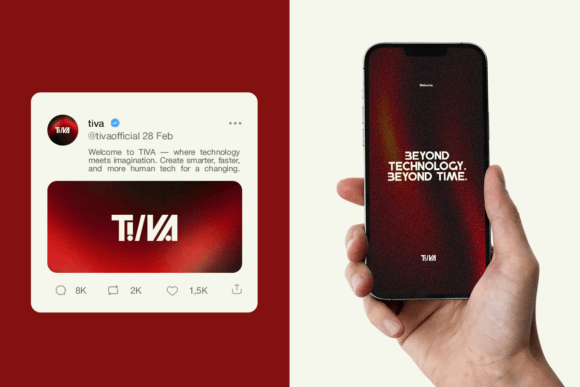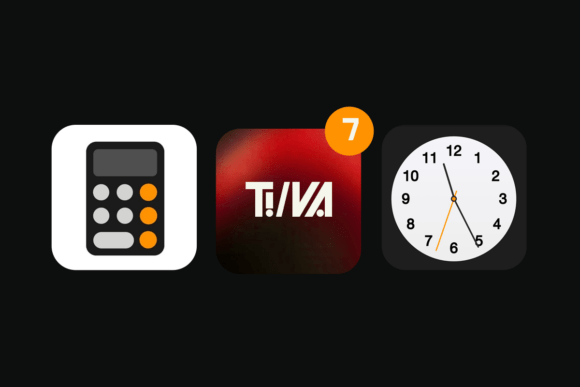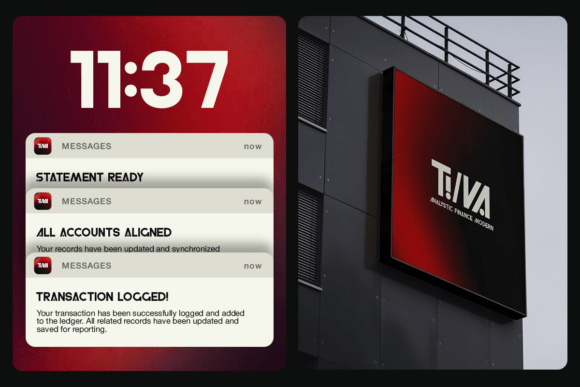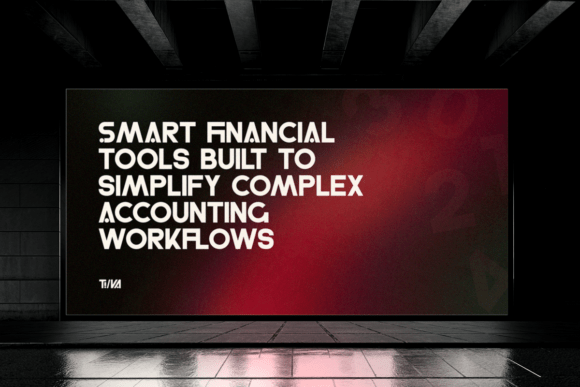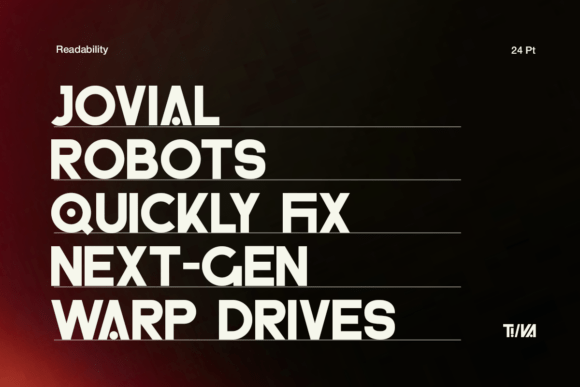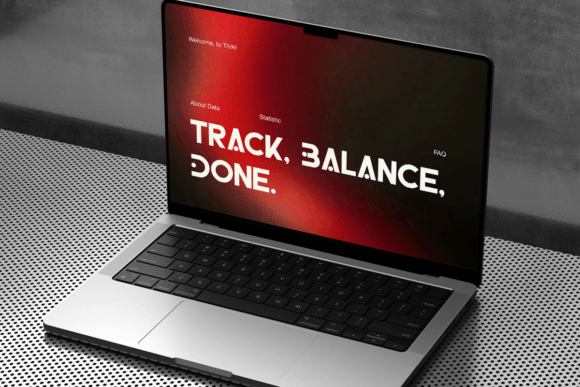
Introducing Boldy Clover Font: The Ultimate Choice for Modern Technology Branding
In the rapidly evolving world of technology, a brand’s visual identity is crucial for making a lasting impression. A well-crafted font can elevate a brand’s image, conveying innovation, intelligence, and digital confidence. This is where Boldy Clover Font comes into play – a modern technology font designed to meet the demands of the digital age. With its bold geometric letterforms, clean edges, and futuristic feel, Boldy Clover delivers a strong visual impact while maintaining excellent readability.
Key Features of Boldy Clover Font
Boldy Clover Font boasts a range of features that make it an ideal choice for tech-forward branding and digital interfaces. Some of its key features include:
- Bold Geometric Letterforms: The font’s bold and geometric letterforms are designed to convey a sense of innovation and digital confidence.
- Clean Edges and Futuristic Feel: The clean edges and futuristic feel of Boldy Clover give it a sharp, smart, and professional look.
- Excellent Readability: Despite its bold design, Boldy Clover maintains excellent readability, making it perfect for digital interfaces and print applications.
- 17+ Ligatures: The font comes equipped with 17+ ligatures, allowing for smoother letter connections and refined typography details.
- PUA Encoding: With PUA encoding included, all special characters and decorative elements are easily accessible without additional software.
Use Cases for Boldy Clover Font
Boldy Clover Font is an incredibly versatile font that can be used in a wide range of applications, including:
- Technology Branding: Create a strong and modern brand identity with Boldy Clover’s bold and futuristic design.
- Fintech Products: Use Boldy Clover to convey a sense of innovation and digital confidence in your fintech products.
- Startup Identities: Give your startup a professional and modern look with Boldy Clover’s clean and geometric design.
- Apps and Dashboards: Use Boldy Clover to create intuitive and visually appealing interfaces for your apps and dashboards.
- Presentations and UI/UX Design: Add a touch of modernity and sophistication to your presentations and UI/UX designs with Boldy Clover.
- Websites and Posters: Use Boldy Clover to create bold and eye-catching headlines and titles for your websites and posters.
- Corporate Visuals: Elevate your corporate visuals with Boldy Clover’s professional and modern design.
Why Choose Boldy Clover Font?
So, why should you choose Boldy Clover Font for your next project? Here are just a few reasons:
- Efficient and Consistent: With a single Regular style, Boldy Clover is efficient and consistent across both print and digital applications.
- Powerful and Versatile: Boldy Clover is a powerful and versatile font that can be used in a wide range of applications.
- Easy to Use: With PUA encoding included, all special characters and decorative elements are easily accessible without additional software.
In conclusion, Boldy Clover Font is a modern technology font that is perfect for designers and crafters looking to create a strong and modern visual identity for their brand. With its bold geometric letterforms, clean edges, and futuristic feel, Boldy Clover delivers a strong visual impact while maintaining excellent readability. Its versatility and range of features make it an ideal choice for a wide range of applications, from technology branding and fintech products to startup identities and corporate visuals. So why wait? Download Boldy Clover Font today and take your brand to the next level!